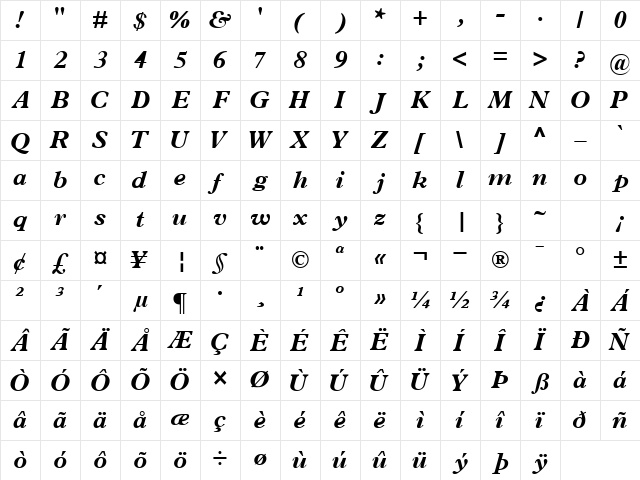
TerminusBlackSSK Italic
Design Context for TerminusBlackSSK
TerminusBlackSSK is a composed and adaptable typeface that performs quietly and consistently across a wide range of design contexts. The slanted form adds forward momentum and visual energy.
Pro Tip: Use TerminusBlackSSK for emphasis, pull quotes, and subheadings where its slanted energy can add rhythm to the layout.